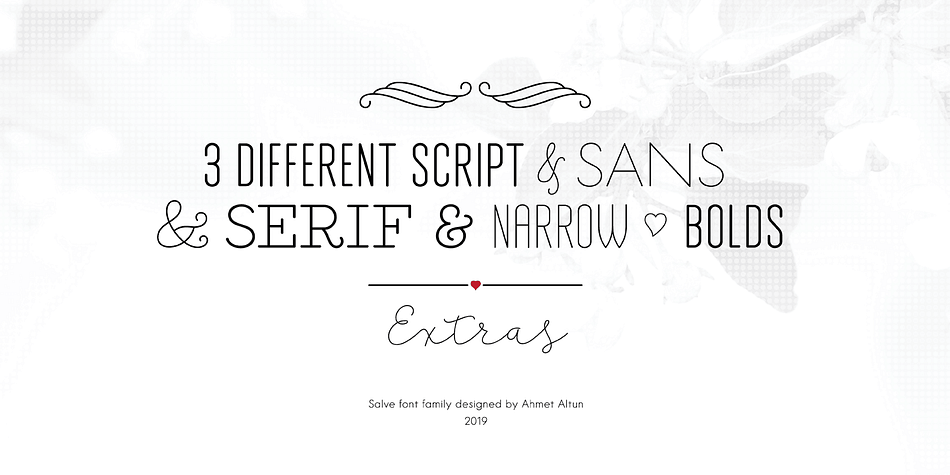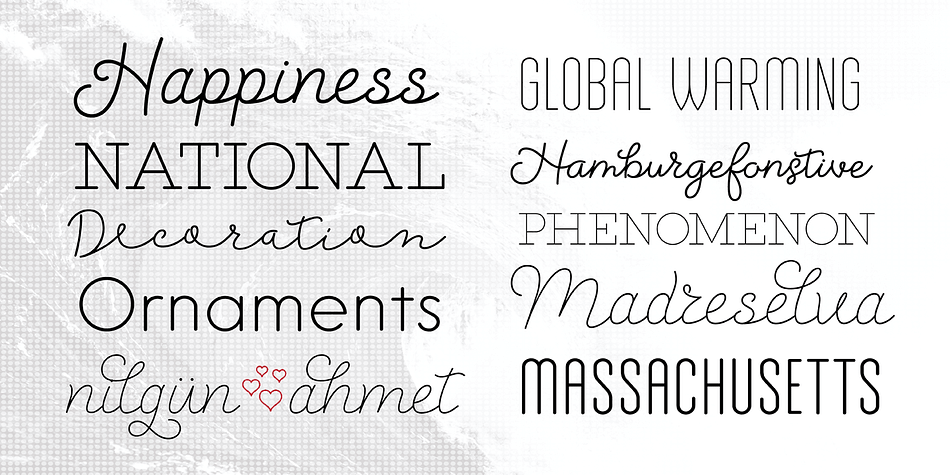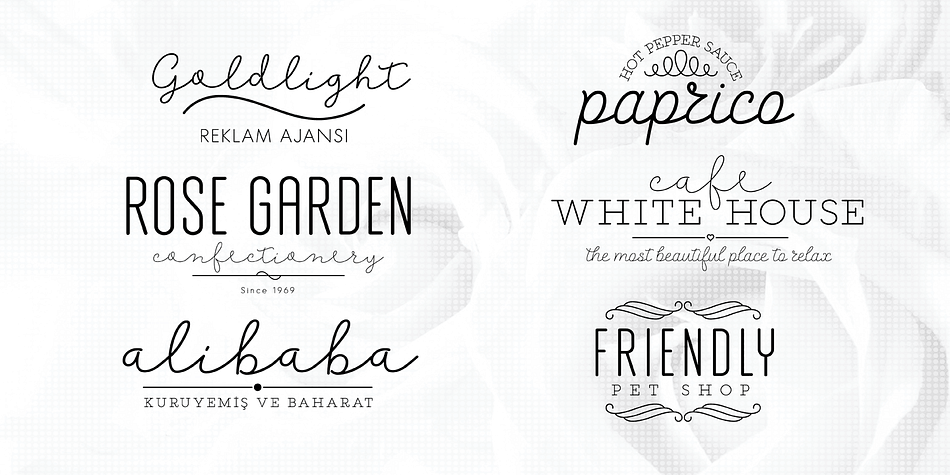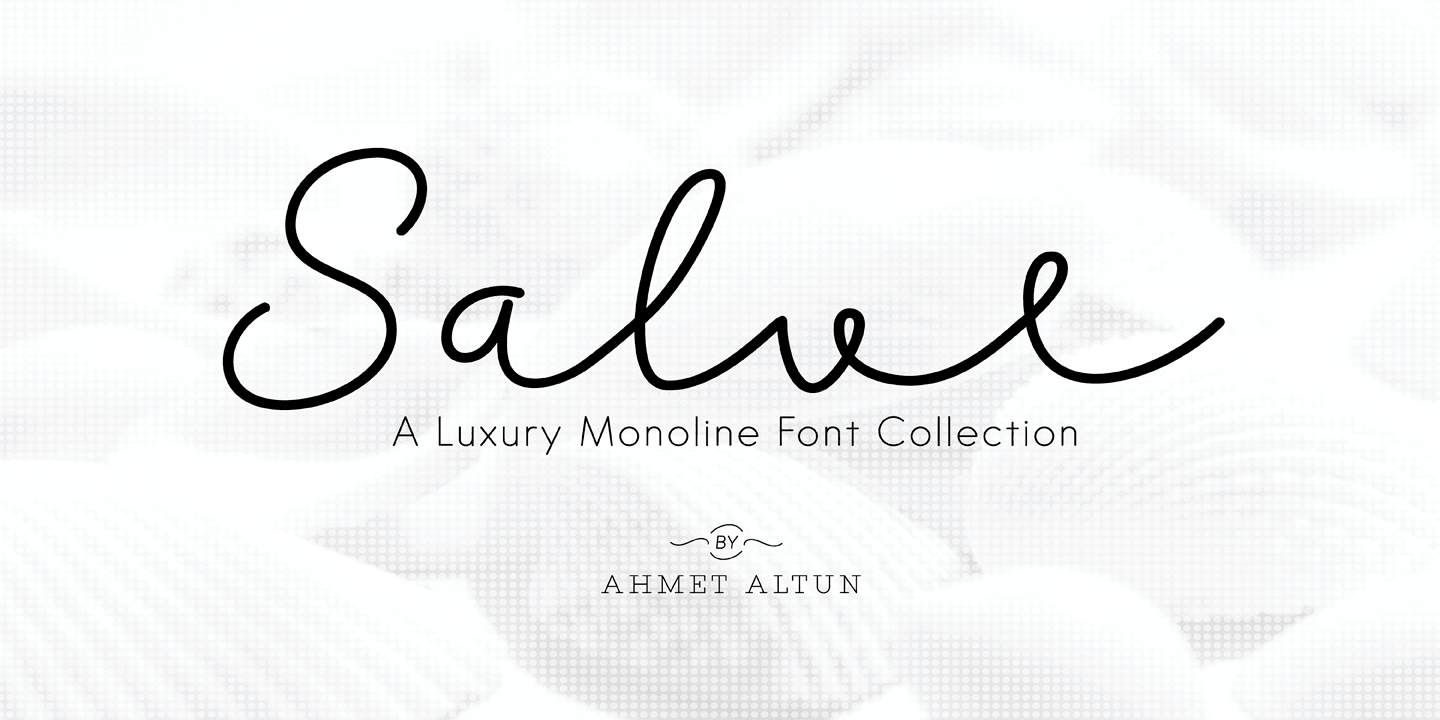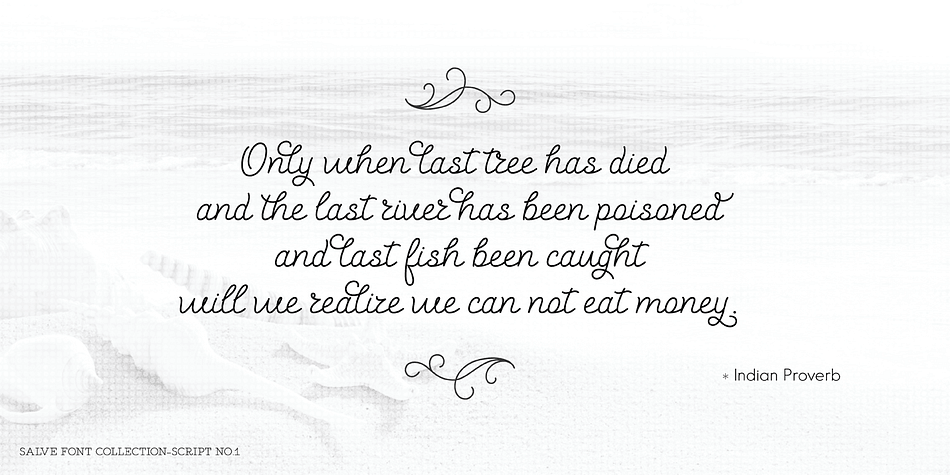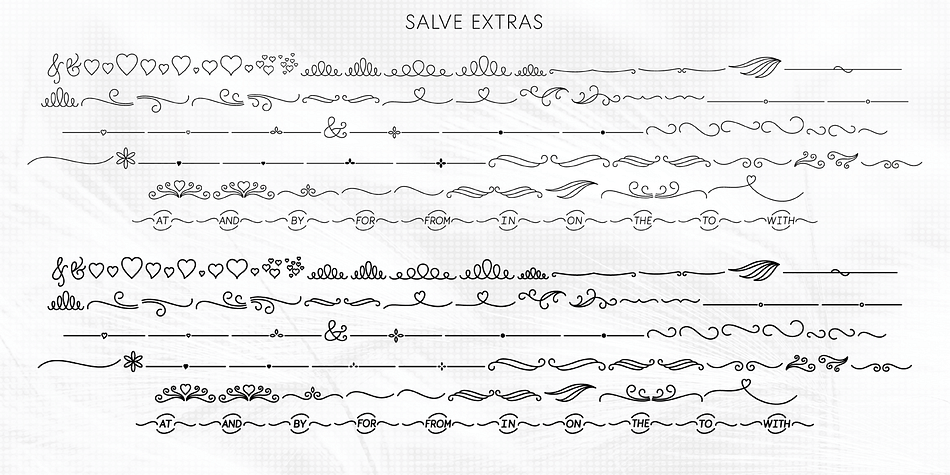
Designed by Ahmet Altun, Salve Font Collection is a multiple classification font family. This typeface has fourteen styles and was published by Ahmet Altun.
Salve is a monoline font family with scripts, sans and serif versions that work great together or alone. Salve Fonts would be a perfect choice to create wonderful designs in your works such as textile, signboards, posters, invitation cards, logos and more. Extras include very stylish and useful ornaments which are eye-pleasing when used together with the fonts, and you can easily reach them with the basic keys on your keyboard.
Styles | Display Sans, Display Serif, Sans Serif, Script, Dingbat |